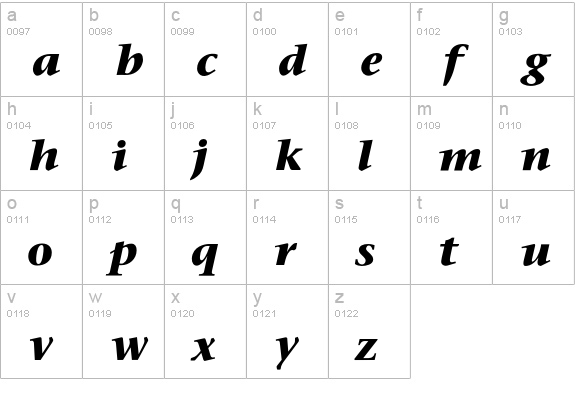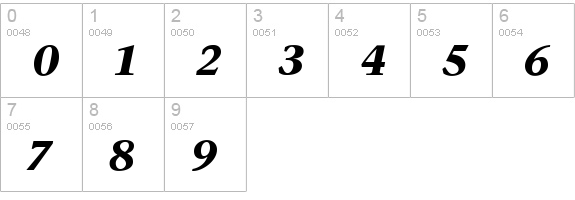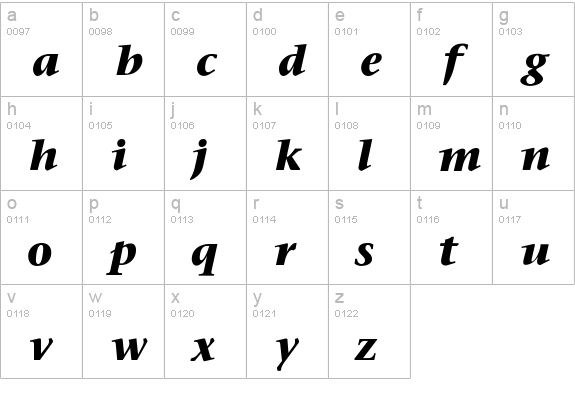
StoneSerifBoldItalic Font Details
StoneSerifBoldItalic is a classic and elegant font that combines the strength of serif with a touch of sophistication in its italic design. Its bold weight commands attention while the italic style adds a sense of dynamism and flair. Perfect for adding a touch of refinement to any design project, this font exudes professionalism and style. The best part? StoneSerifBoldItalic is available for free download at FontsMarket.com. Whether you're working on a business presentation, a wedding invitation, or a branding project, this versatile font will elevate your design to the next level. With its timeless appeal and modern twist, StoneSerifBoldItalic is a must-have addition to your font collection.